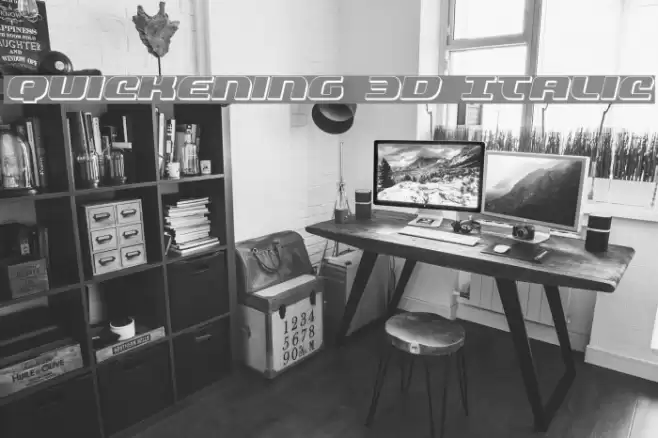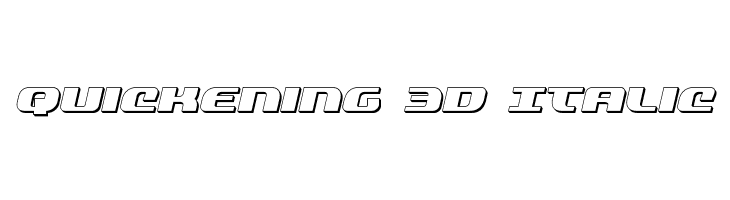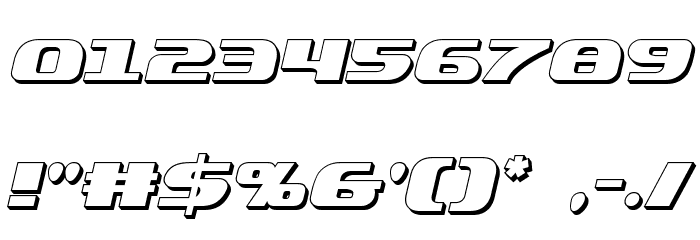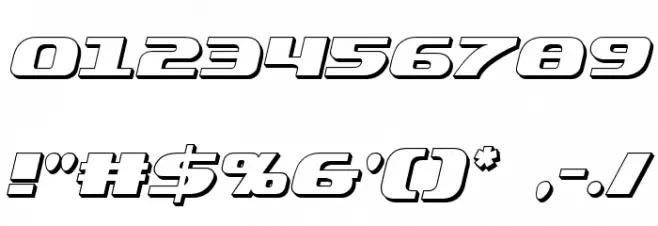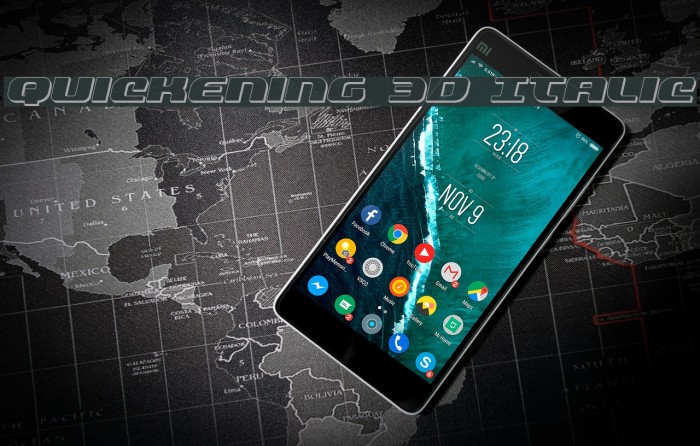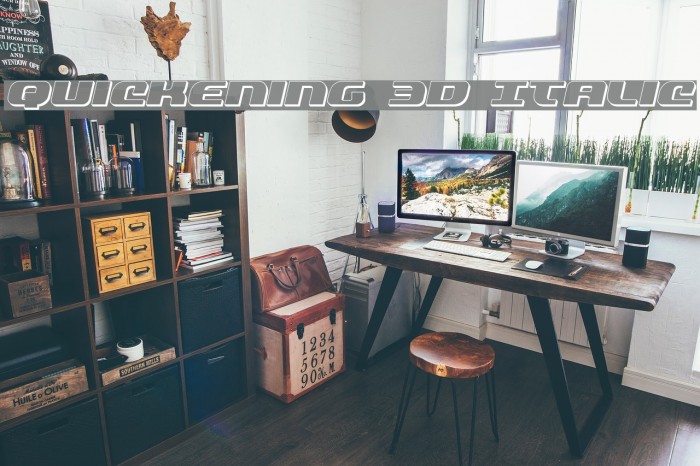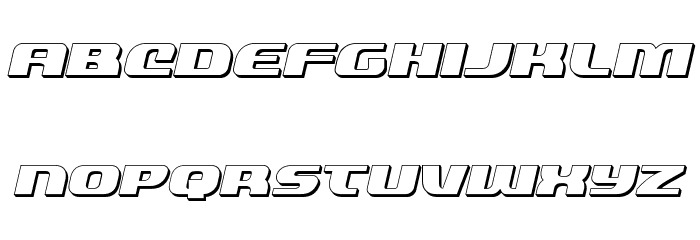
Quickening 3D Italic Font
Quickening 3D Italic Description
This font features a bold, three-dimensional style with an italic slant, giving it a dynamic and futuristic appearance. The characters are outlined, creating a sense of depth and movement. The uppercase and lowercase letters maintain a consistent width, while the numerals and special characters complement the overall design. The font's geometric structure and clean lines make it suitable for modern and tech-oriented projects. Its unique style is eye-catching and can be used to create a strong visual impact.
A bold, 3D italic font with outlined characters and a futuristic look from Uncategorized fonts.
- Proposed Projects: Ideal for tech branding, video game titles, futuristic posters, and digital media.